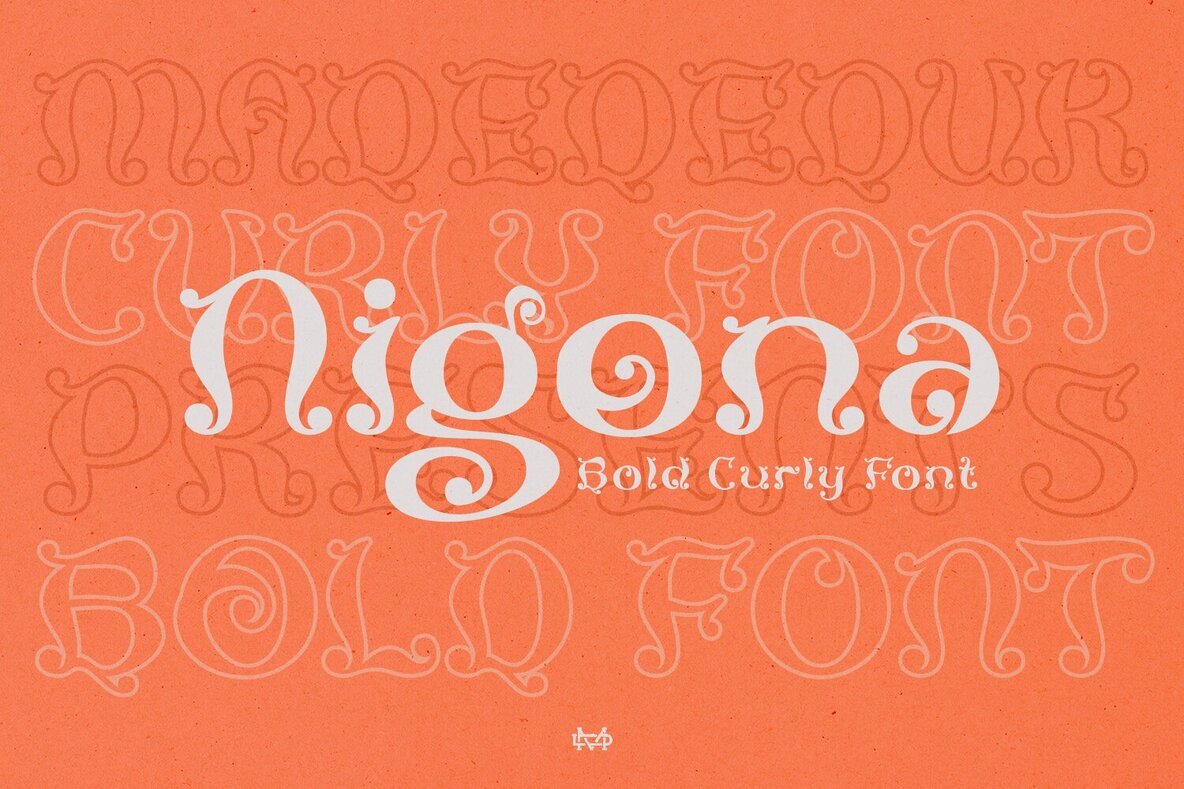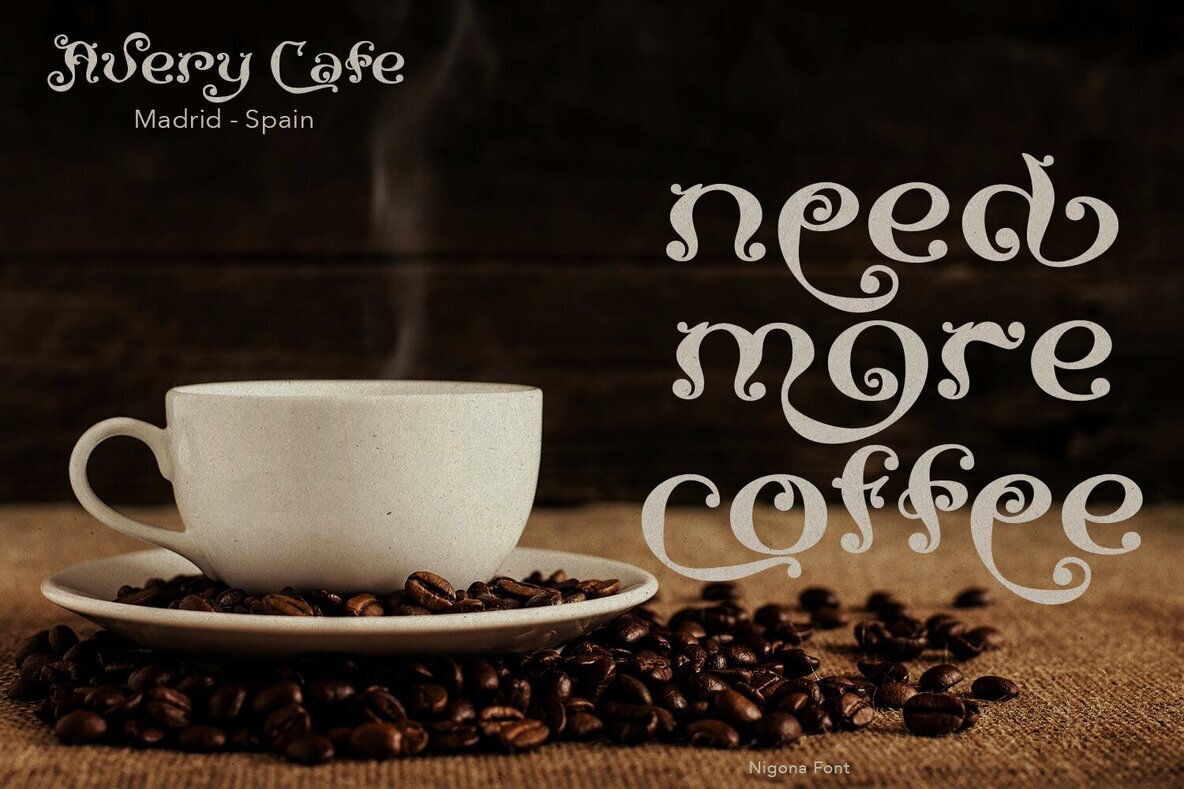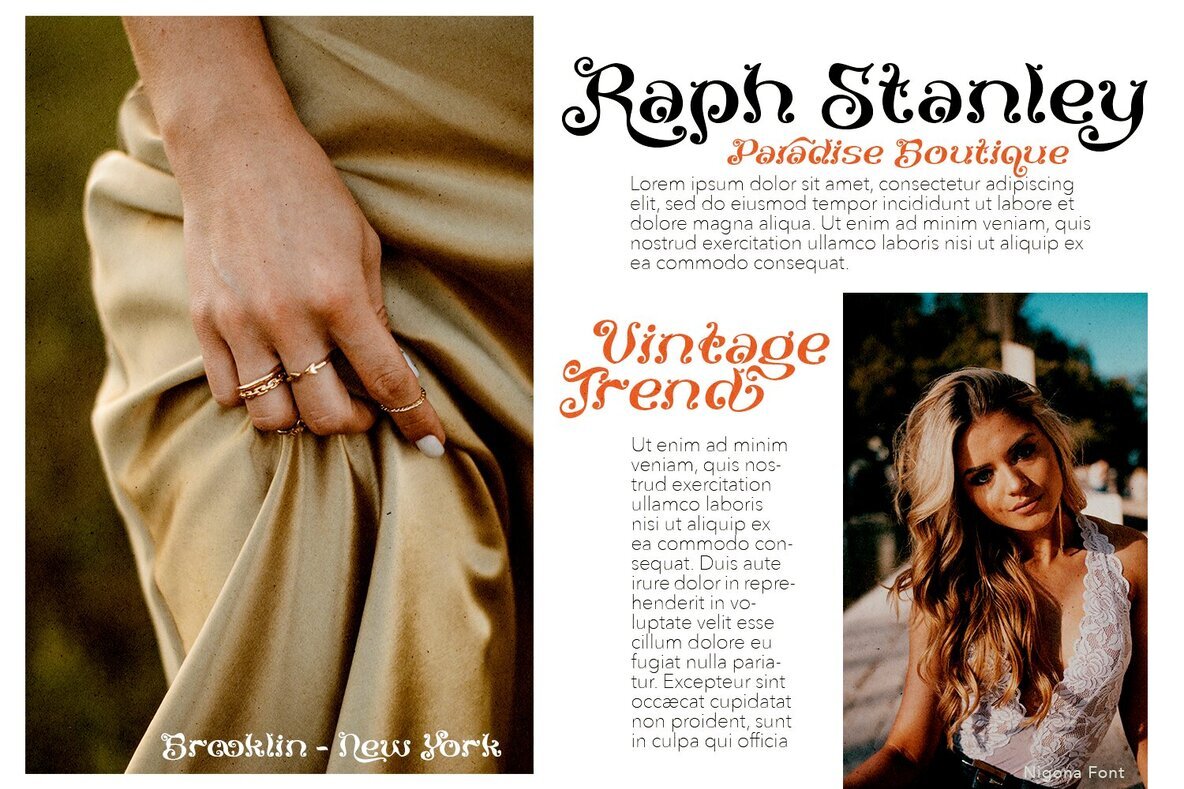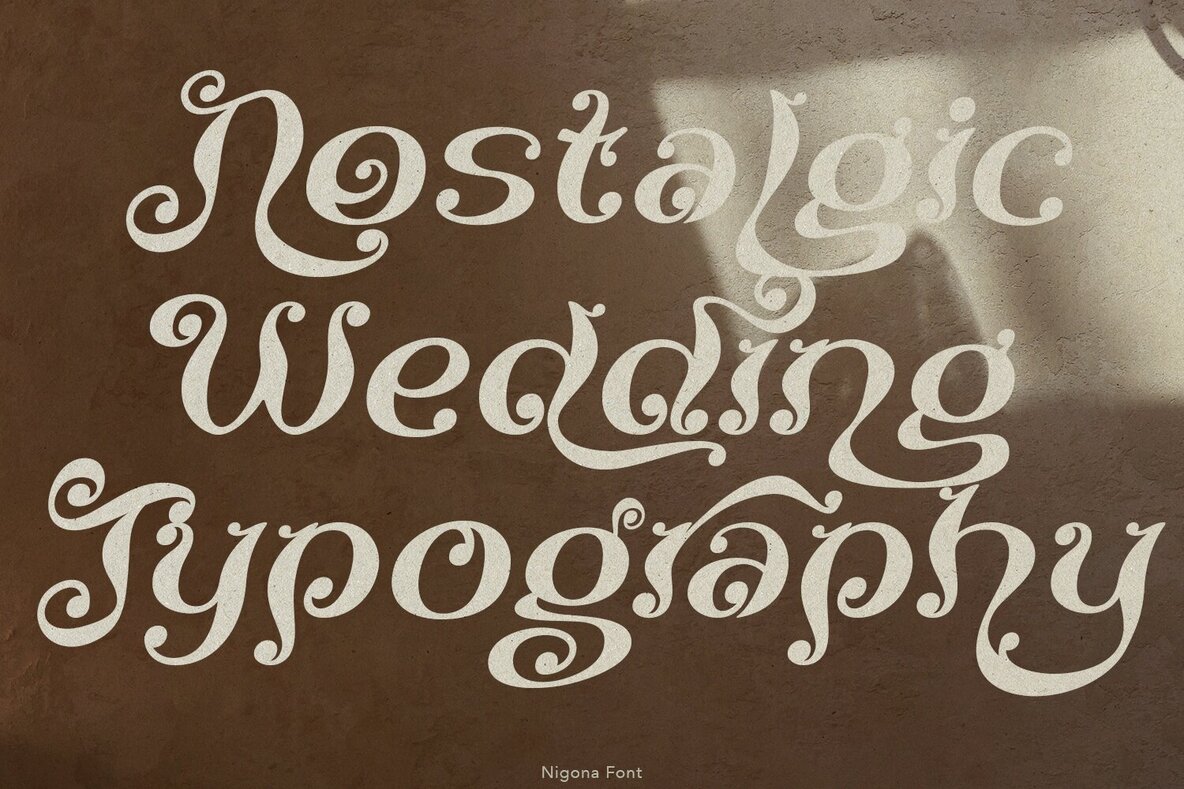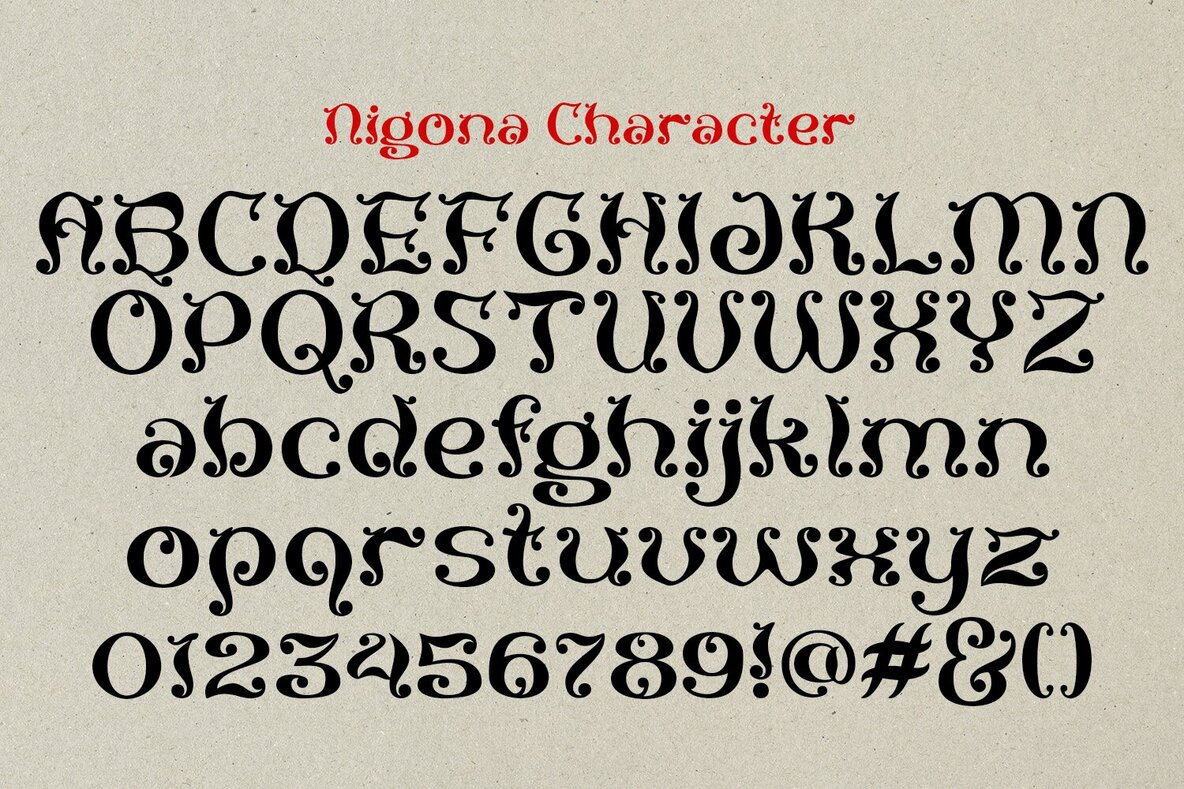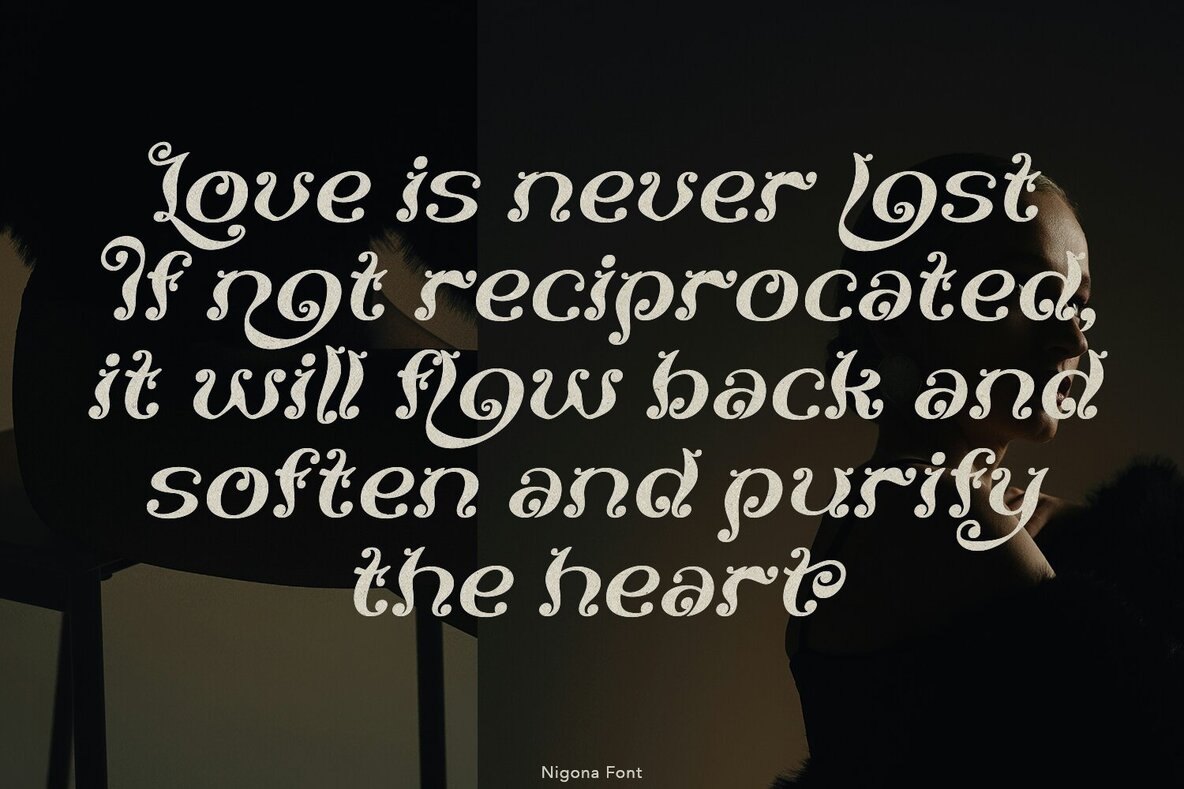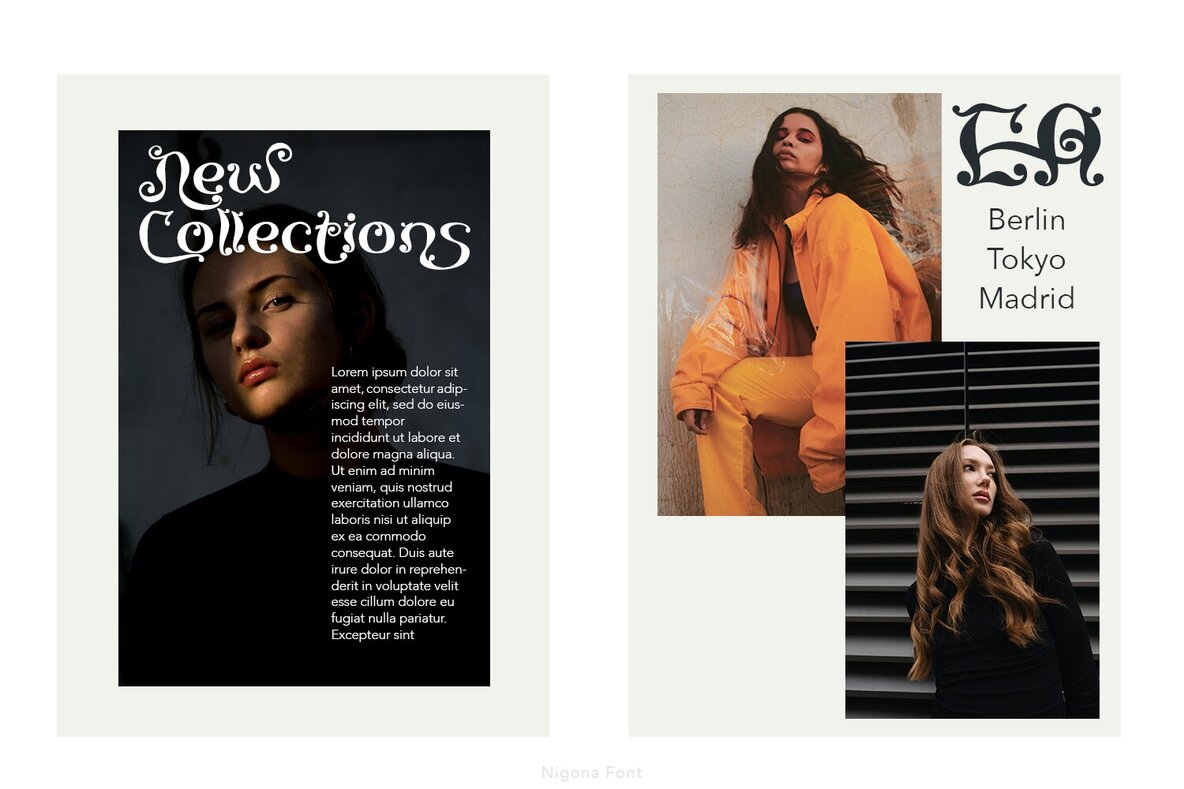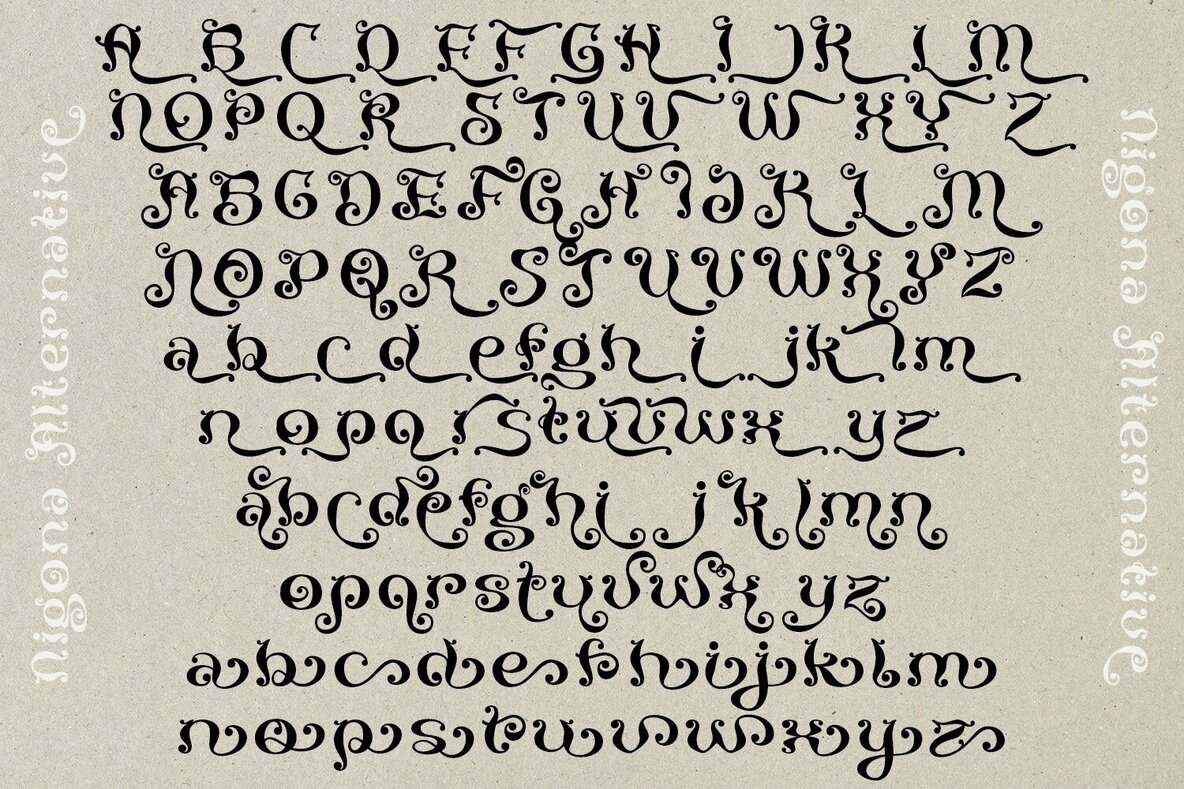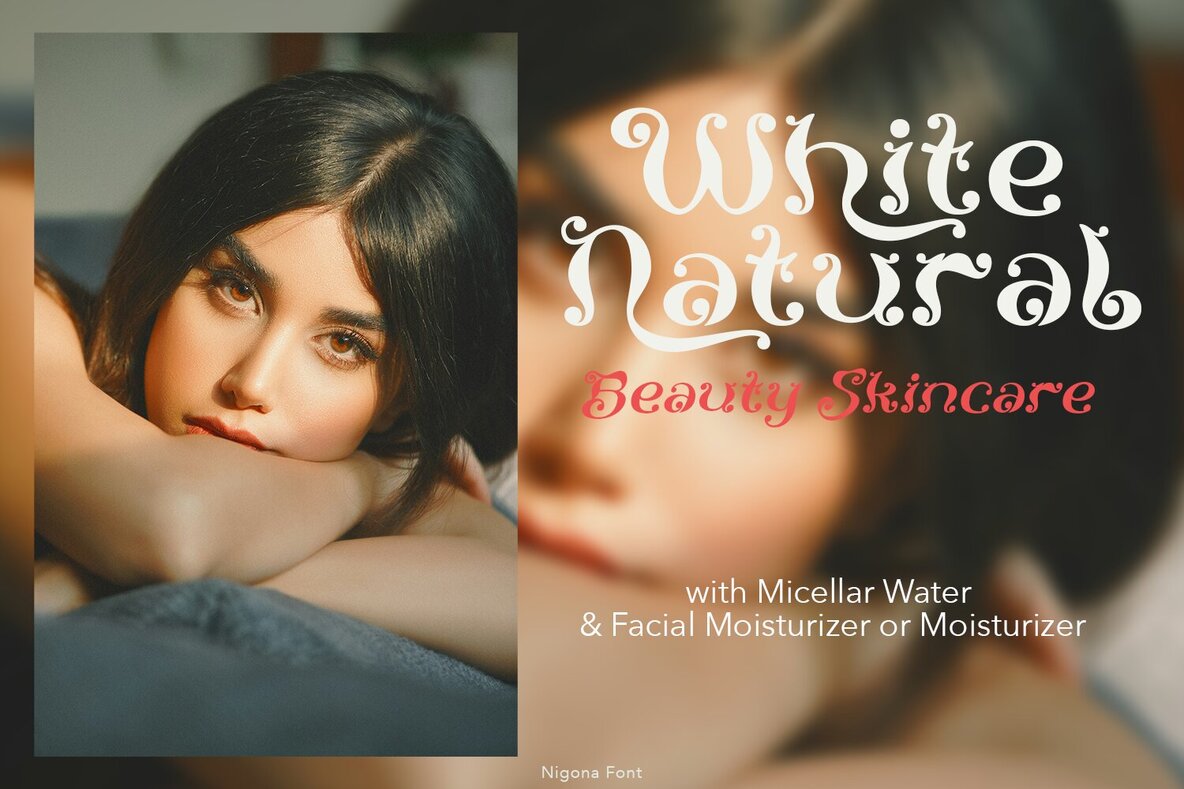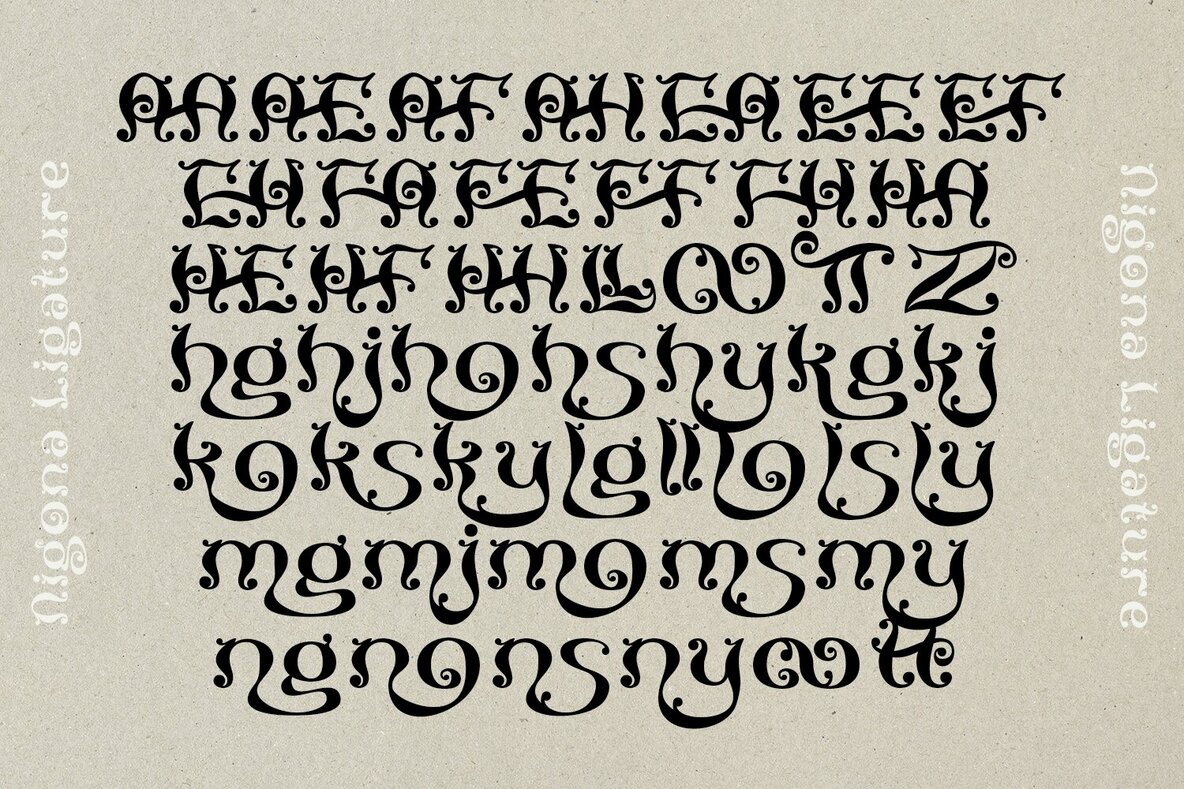
Nigona Font
Experience the distinctive charm of Nigona, a high-contrast serif font inspired by the iconic typography of the 1970s. Its vintage allure makes it a fitting choice for high-end fashion and cultural environments, offering versatility and elegance in equal measure. Ideal for a variety of display purposes, Nigona helps you achieve a classic, refined style that speaks to a bygone era.Nigona: A Timeless Tribute to 70s Typography